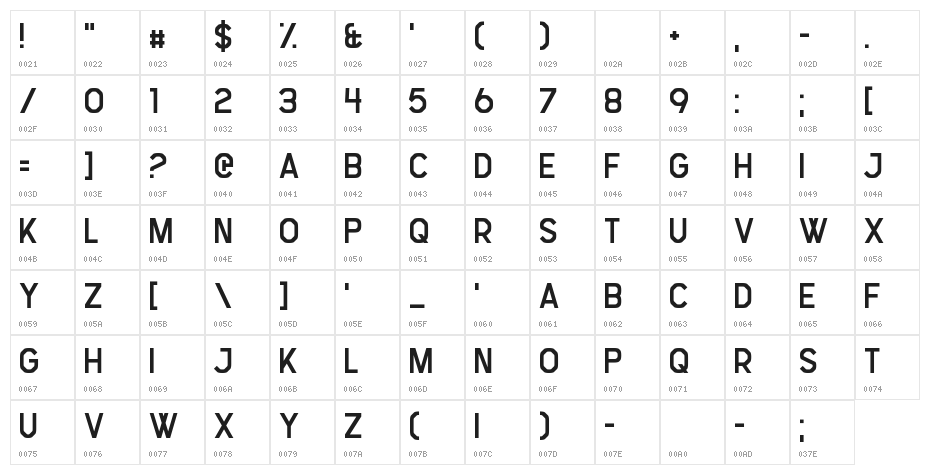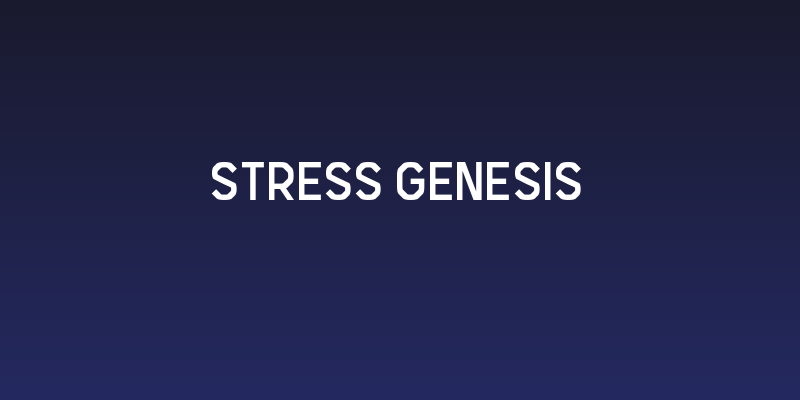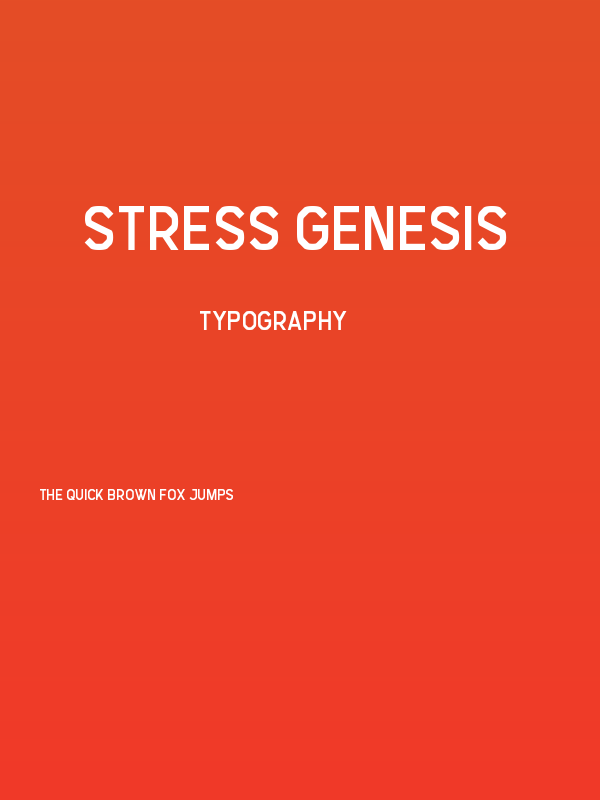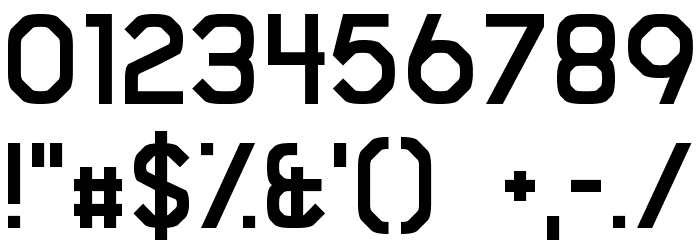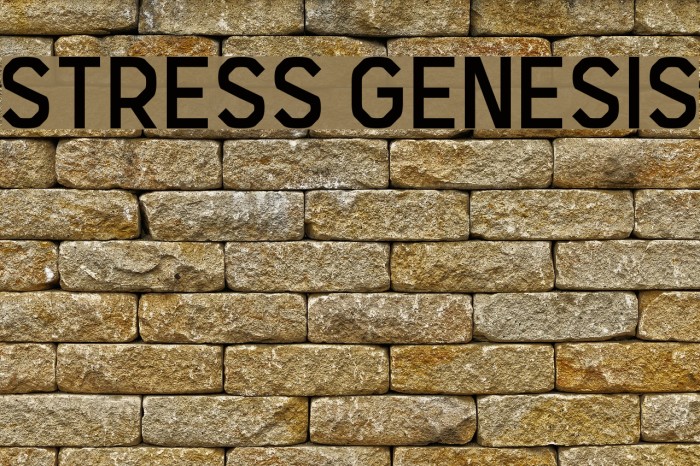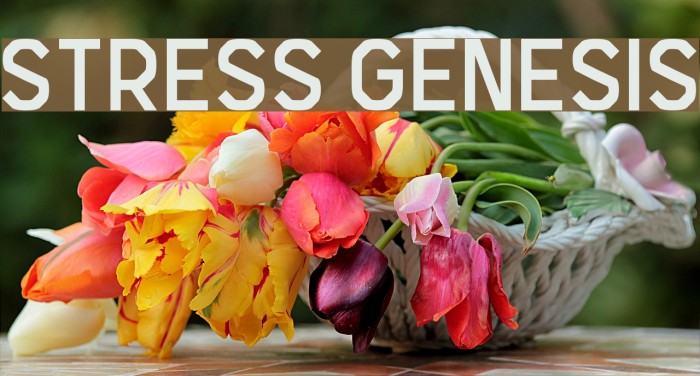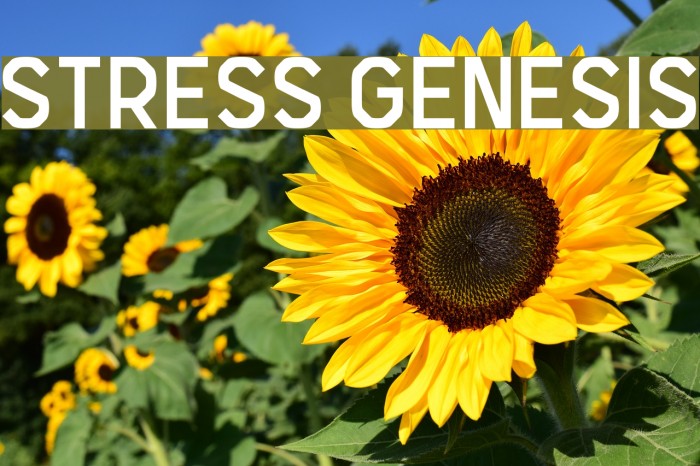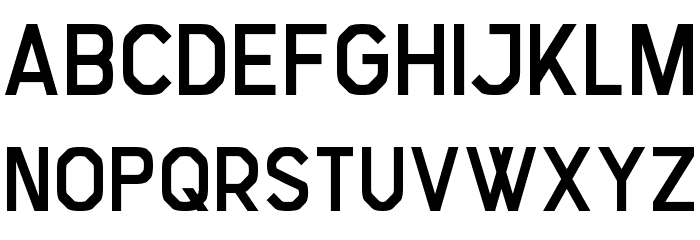
Stress Genesis Font
Stress Genesis Description
This font features a bold and geometric design with a modern aesthetic. The characters are constructed with straight lines and sharp angles, giving it a strong and assertive appearance. The uppercase and lowercase letters maintain a consistent style, with uniform stroke widths that contribute to its clean and structured look. The numerals and special characters follow the same design principles, ensuring a cohesive visual identity across all elements. This font's clarity and precision make it suitable for various applications where readability and impact are essential.
| Proposed Projects | Ideal for branding, signage, posters, and digital media where a strong visual impact is needed. |